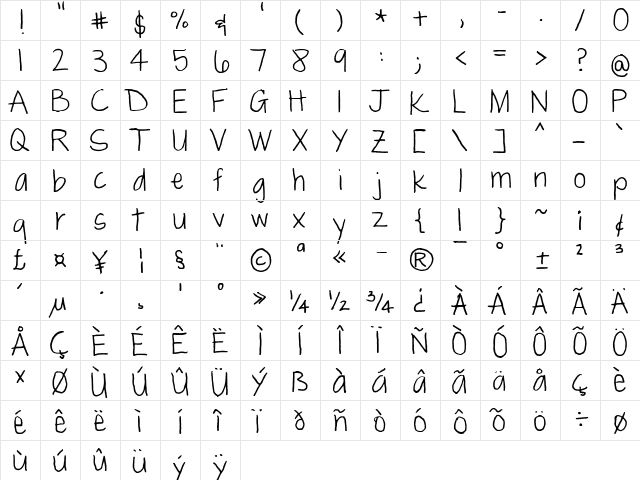
FG Smilla Light Regular
| Foundry | Font Garden |
| Designer | Font Garden |
Design Context for FG Smilla Light Typeface
FG Smilla Light takes a measured approach to typography — its balanced proportions and neutral character make it a reliable workhorse for both digital and print work. Its slender proportions lend an understated elegance to any composition.